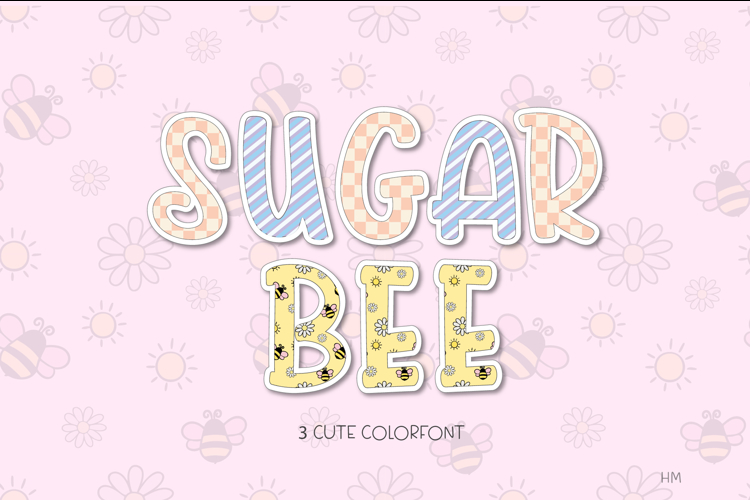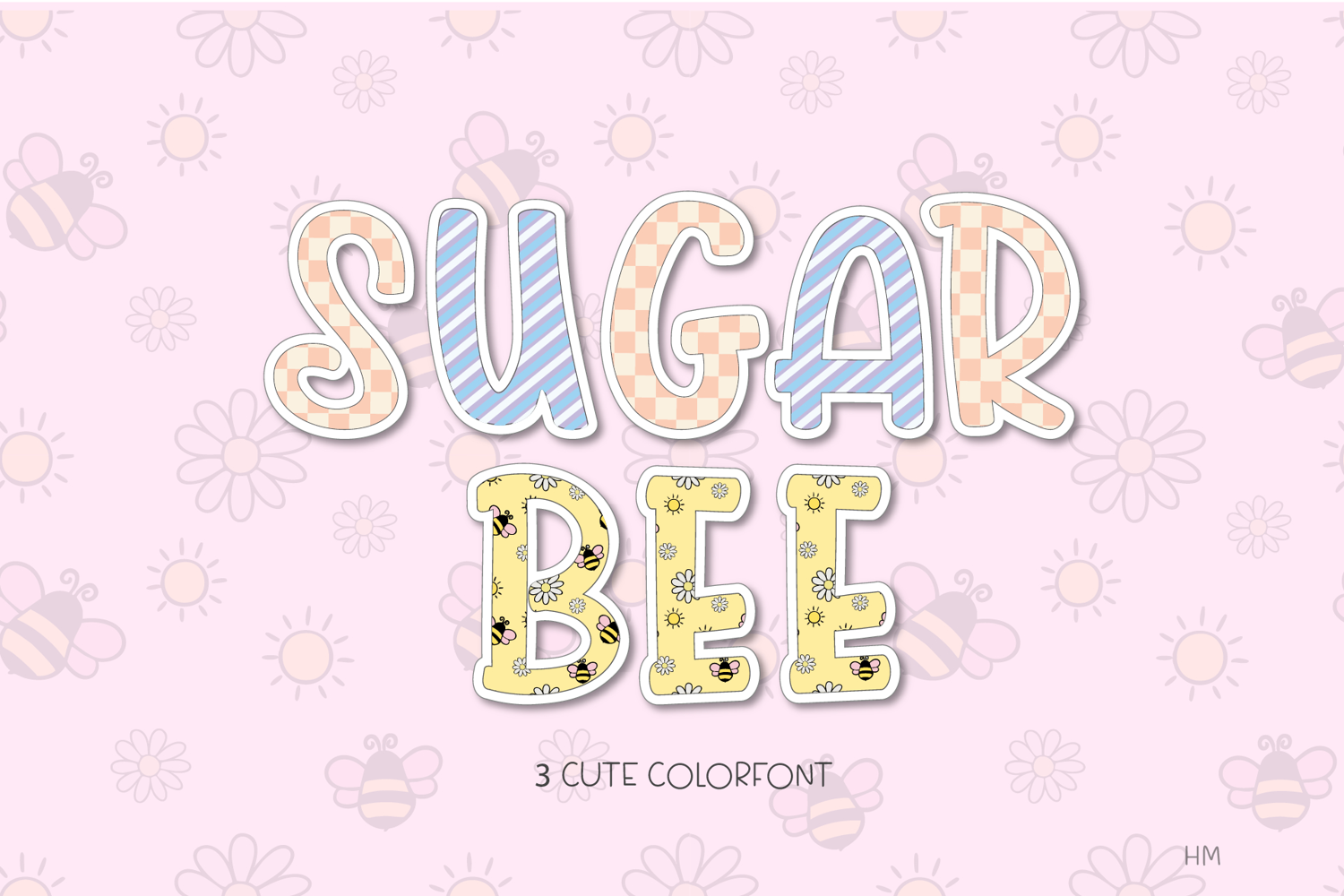
Sugar Bee Color Font is a delightful and whimsical font designed to bring a sweet buzz to your creative projects. Perfect for crafters, teachers, and designers alike, this charming color font combines playful bee elements with cute script lettering, making it ideal for spring crafts, kids' printables, greeting cards, planner stickers, logos, classroom decor, and more.